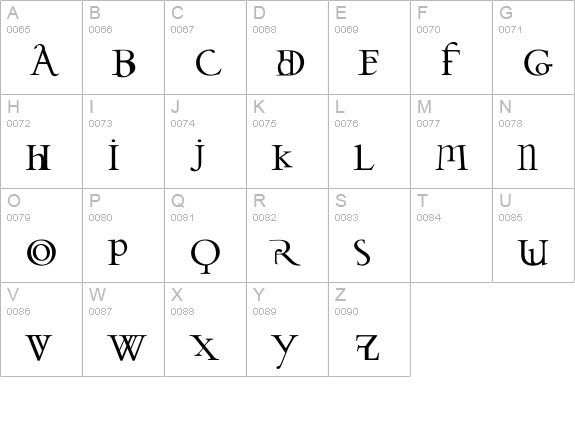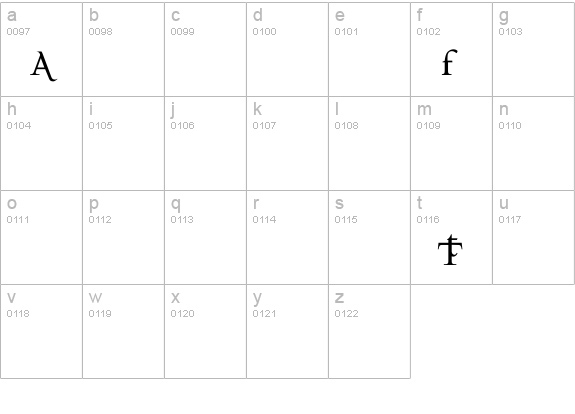
Darwin Plain Font Details
The Darwin Plain font is a timeless and versatile typeface that exudes elegance and simplicity. With its clean lines and classic proportions, this font is perfect for a wide range of design projects, from branding to editorial design. The Darwin Plain font is free to download at FontsMarket.com, making it accessible to designers and creatives looking to add a touch of sophistication to their work. Its legibility and modern aesthetic make it a popular choice for both print and digital designs. Whether you're working on a logo, poster, or website, the Darwin Plain font is sure to elevate your design with its understated charm and effortless style.